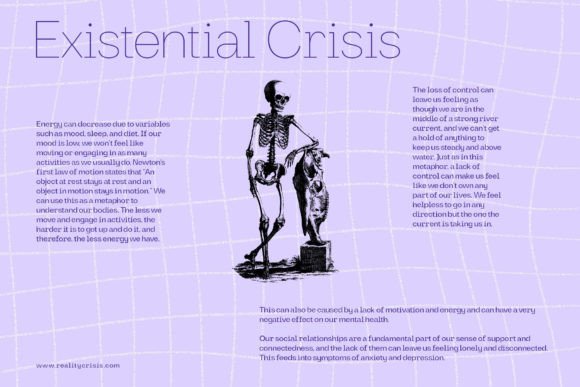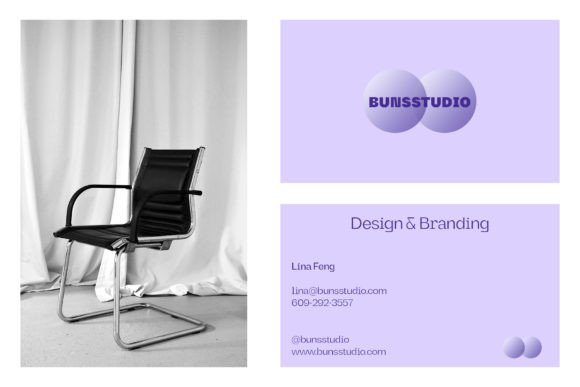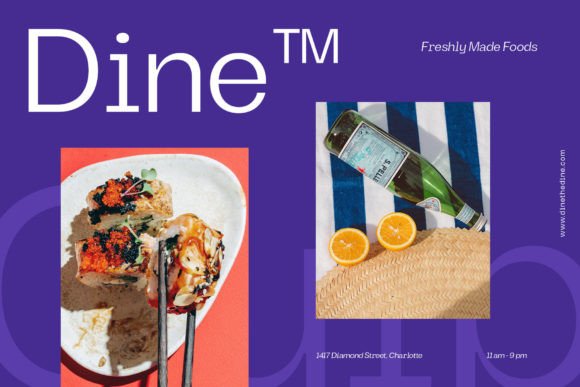
Introduction to Maginer Font
You’ve just had an epiphany – a brilliant idea for your next creative project, and you can’t wait to bring it to life. The possibilities are endless, but the right font can make all the difference. That’s where the Maginer Font comes in – a fun and quirky display font that’s sure to elevate your design to the next level.
Whether you’re working on a project that requires a touch of whimsy or a bold statement, the Maginer Font has got you covered. With its masterful design, this font is a true game-changer for designers. And the best part? It’s available for a free download, so you can get creative without breaking the bank.
So why is the Maginer Font so valuable to designers? For starters, its high-quality design makes it perfect for any creative project. Plus, its transparent background gives you the flexibility to customize it to your heart’s content. Whether you’re working on a personal project or a client’s design, the Maginer Font is sure to be a valuable resource in your design toolkit.
Key Features of Maginer Font
- High-quality design resource suitable for creative projects, offering a unique and stylish look.
- Transparent background option, making it easy to customize and blend with any design element.
- High-resolution font, ensuring crisp and clear display even in large sizes.
- Includes a range of font styles and weights, providing versatility for various design applications.
- Designed with a focus on readability, making it perfect for body text, headings, and titles.
Honest Review: Maginer Font
As a designer, I’m always on the lookout for high-quality design resources that can elevate my creative projects. I recently stumbled upon the Maginer Font, and I’m excited to share my honest review with you.
- High-quality font with a unique and stylish design.
- Transparent background makes it easy to use on any design project.
- Limited character set, which may not be suitable for long-form text projects.
- Not ideal for projects requiring a wide range of font sizes, as it may become difficult to read.
Overall, I’m impressed with the Maginer Font. It’s a great addition to any designer’s toolkit, and I appreciate the transparent background and free download options. While it may have some limitations, it’s a high-quality font that’s perfect for smaller design projects or as a accent font.
Tips for Getting the Most Out of Maginer Font
One of the unique features of Maginer Font is its transparent background, making it perfect for use in designs where you want to create a sense of depth and dimension. To get the most out of this feature, try using the font in combination with other design elements that have a transparent background. You can also use the font in a variety of creative ways, such as creating a custom logo or designing a social media graphic.
Maginer Font is a versatile design resource that can be used in a variety of creative projects, including branding, marketing materials, and digital products. Its high-quality design and transparent background make it perfect for use in designs where you want to create a sense of sophistication and elegance.